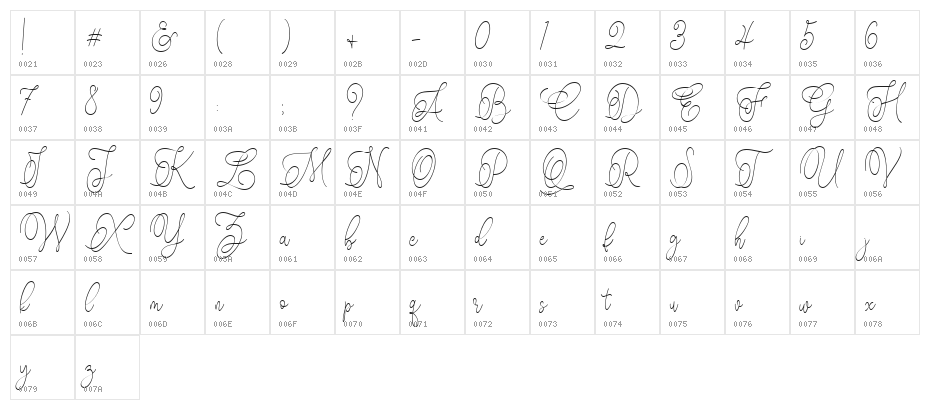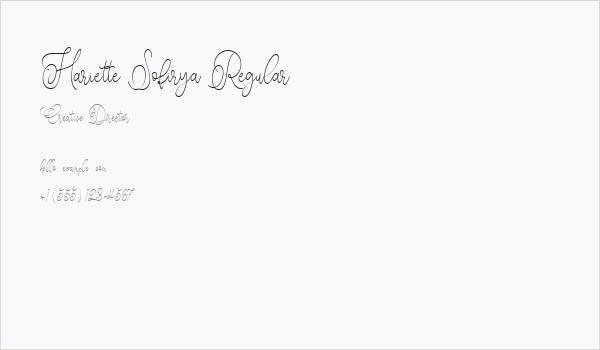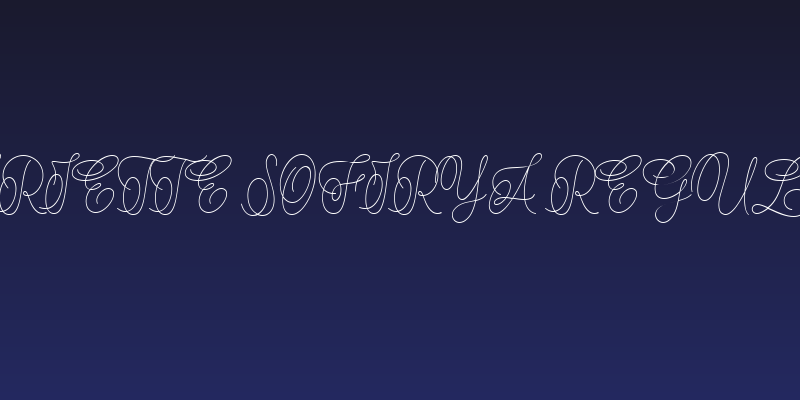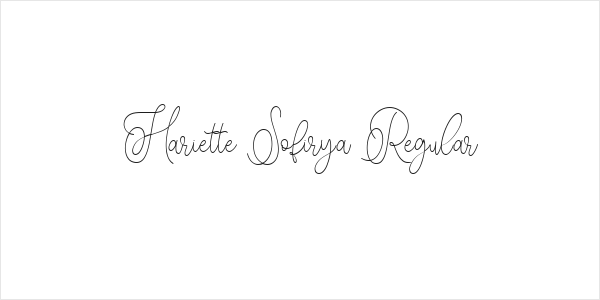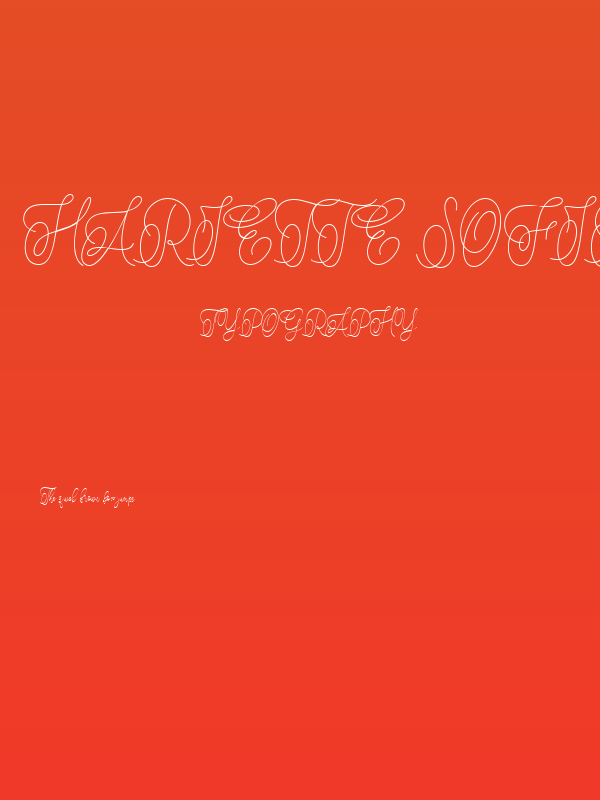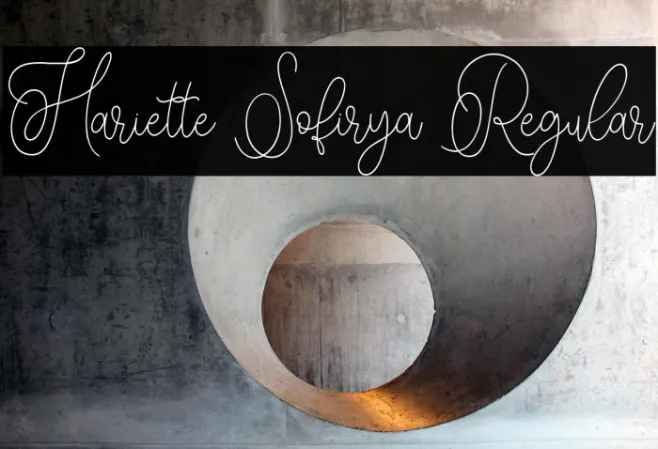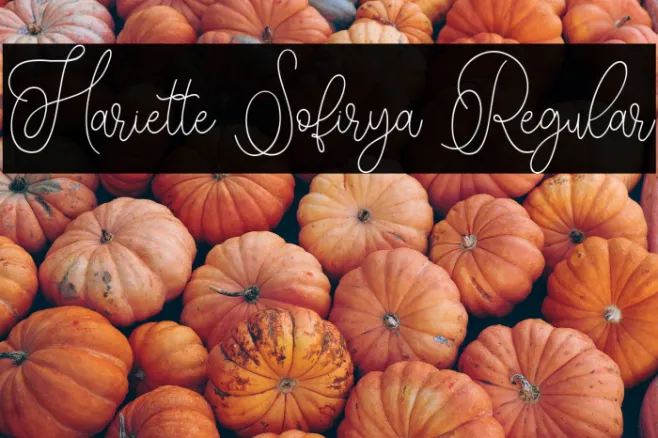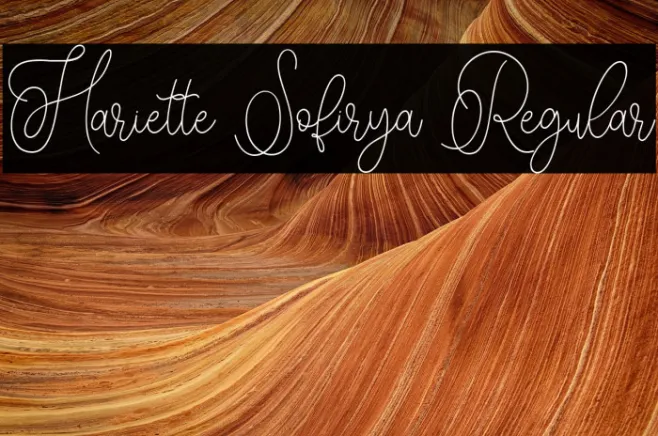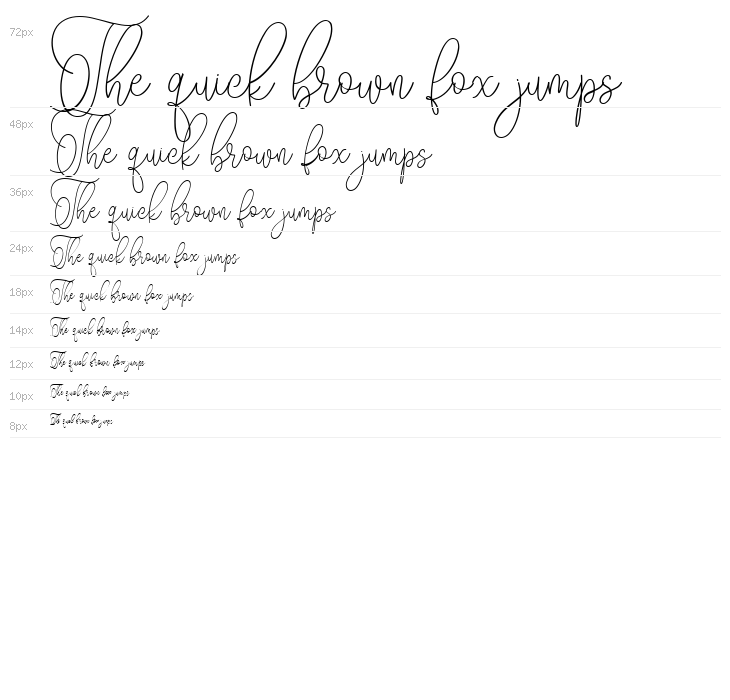
Hariette Sofirya Regular Font
Hariette Sofirya Regular Description
This font features an elegant and sophisticated script style with intricate loops and flourishes that give it a refined and decorative appearance. The uppercase letters are particularly ornate, with elaborate swirls that add a touch of luxury and grace. The lowercase letters maintain a fluid and connected script style, making it suitable for elegant invitations and formal occasions. The numerals and special characters are consistent with the overall style, offering a cohesive look. The thin strokes and delicate curves contribute to its graceful aesthetic, making it ideal for projects that require a touch of elegance and sophistication.
| Name | Hariette Sofirya Regular |
| Font Family | Hariette Sofirya |
| Style | HarietteSofirya-Regular |
| Overall Style | Elegant, Decorative |
| Use Case | Headlines, Invitations, Branding |
| Proposed Projects | Ideal for wedding invitations, luxury branding, elegant stationery, and formal event announcements. |